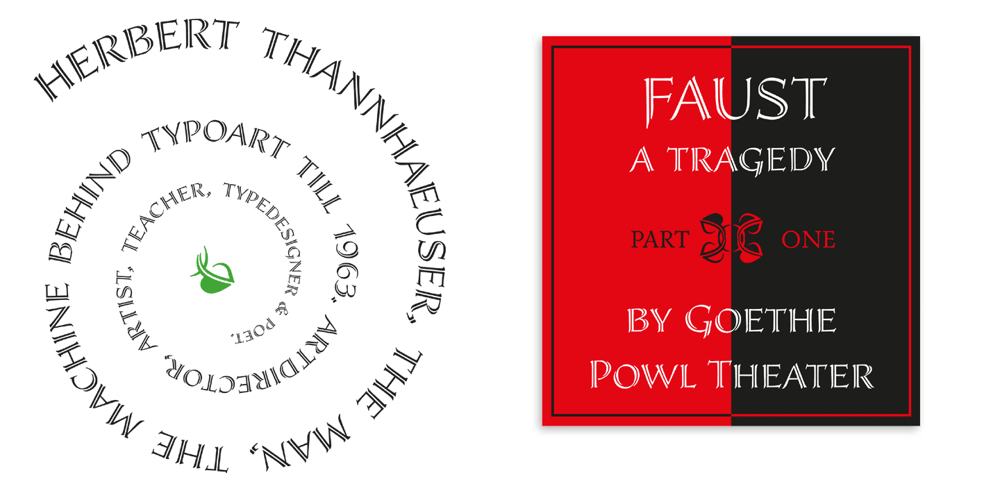
Missale Incana Font Family was designed by Herbert Thannhaeuser, Andreas Seidel and published by astype. Missale Incana contains 1 styles and family package options. Missale Incana is a redesigned, new interpretation of a typeface from Herbert Thannhaeuser. Its a strong calligraphic roman typeface, well suited for headlines. OpenType features: